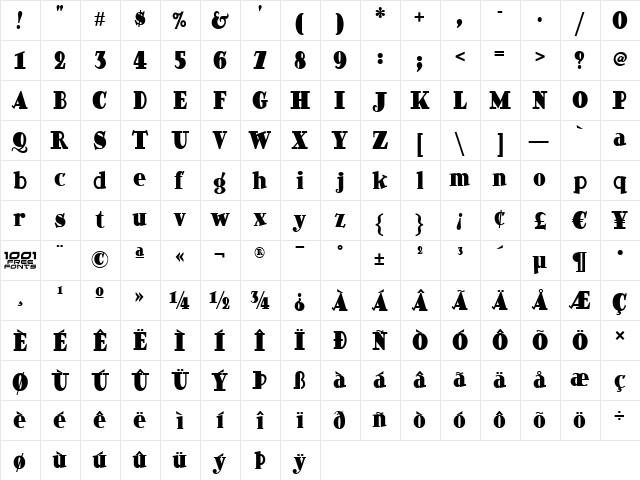
Ding Dong Daddyo NF Regular
Design Context for Ding Dong Daddyo NF Typeface
Ding Dong Daddyo NF is a composed and adaptable typeface that performs quietly and consistently across a wide range of design contexts.